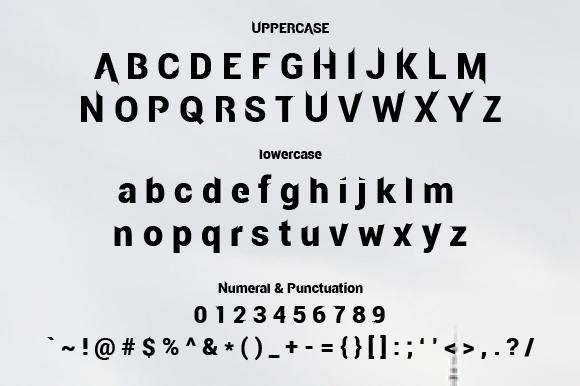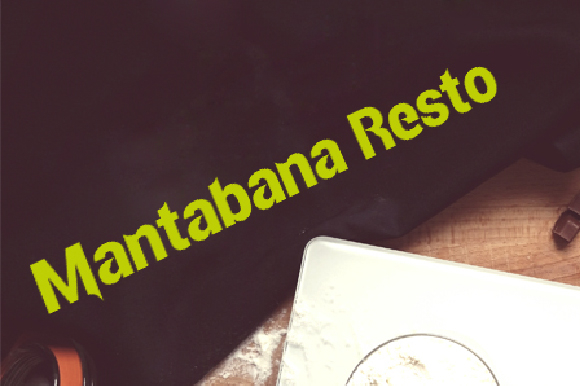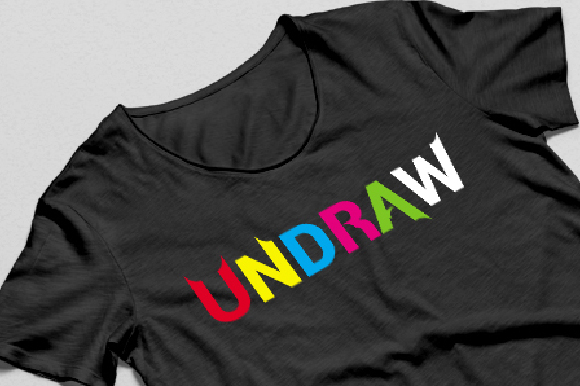
HomeBlackletter FontsMinang Font Blackletter Fonts Minang Font FacebookXPinterestWhatsApp 1 of 6 Minang Font Poster 2... Minang Font Poster 3... Minang Font Poster 4... Minang Font Poster 5... Minang Font Poster 6... About Minang Font The Minang is a futuristic minimalist slab typeface. It’s great for striking & modern designs. DOWNLOAD NOW People also explored Stoony Font Rusa Hitam Font Zenneklo Font Lemoncurd Font Feriska Font Lassie Font Cafiloser Font Hesty Aqaky – Modern Script Font Million Hopes Font 373 0 TagsMinang Font Previous articleGenthing FontNext articleGutemberg Psalter Gotisch Duo Font LEAVE A REPLY Cancel reply Comment: Please enter your comment! Name:* Please enter your name here Email:* You have entered an incorrect email address! Please enter your email address here Website: Save my name, email, and website in this browser for the next time I comment. Personal Use Free Angola Beach Personal Use Free Read more about this font Adventure Font Personal Use Free Read more about this font Aelten Personal Use Free Read more about this font Martani Personal Use Free Read more about this font BLOG Using Fonts in Digital Marketing: Tips to Strengthen Your Brand Identity In the realm of digital marketing, every visual element plays a crucial role in shaping a brand's identity, and fonts are no exception. The... 5 Fonts That Will Dominate Design Trends in 2026 Best Fonts for T-Shirt Design – Top 2025 Picks To increase your work productivity, choose the most readable fonts.